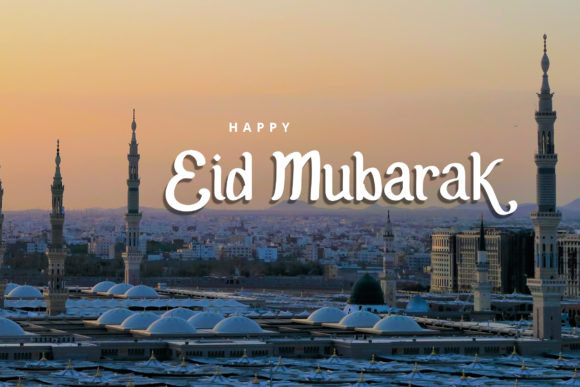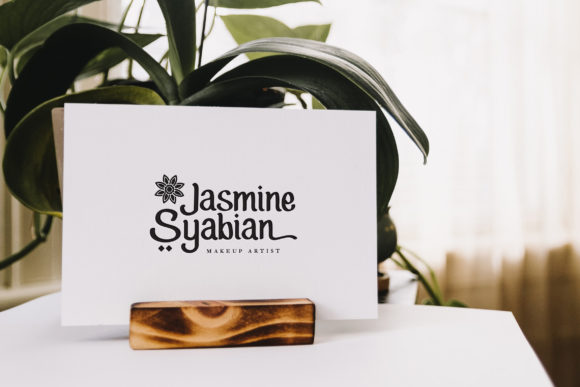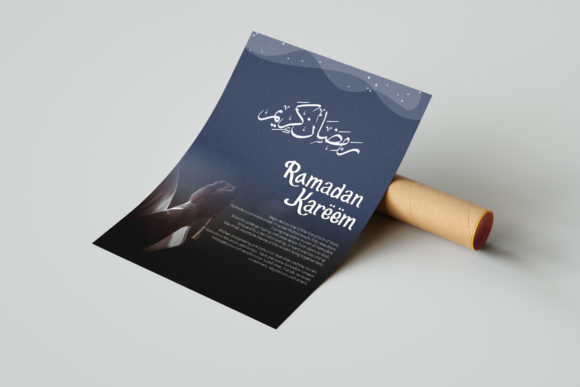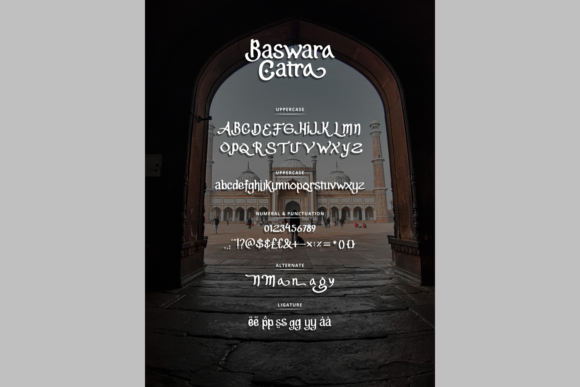
Discover the Elegance of Baswara Catra Font: Elevate Your Designs with a Unique Handwritten Style
In the world of typography, a good font can make all the difference in elevating your designs from ordinary to extraordinary. For designers and crafters looking for a touch of elegance and uniqueness, the Baswara Catra Font is a gem worth exploring. This flowing and unique handwritten font has been capturing hearts with its incredibly versatile style, making it perfect for a wide range of creative projects.
The Charm of Baswara Catra Font
Baswara Catra Font stands out with its beautiful, handcrafted design that exudes a sense of sophistication and charm. Its flowing lines and unique characteristics make it a versatile choice for various design needs. Whether you’re working on wedding invitations, stationery art, social media posts, or any other creative project, Baswara Catra brings a touch of elegance and personalization that sets your work apart.
Perfect for Wedding Invitations and Stationery
Wedding planners and stationery designers, rejoice! Baswara Catra Font is an excellent choice for creating stunning wedding invitations and stationery. Its elegant and flowing script gives your designs a romantic and luxurious feel, making it perfect for save-the-date cards, wedding programs, and thank-you notes. The font’s unique style ensures that your wedding stationery will be memorable and truly reflective of the couple’s special day.
Eye-Catching Social Media Posts
In the digital age, social media presence is crucial for businesses, influencers, and creatives alike. With Baswara Catra Font, you can create eye-catching social media posts that stand out in crowded feeds. Its unique and flowing style makes your content more engaging and visually appealing, helping you to attract more attention and connect with your audience on a deeper level.
Beyond Stationery: Exploring More Uses for Baswara Catra
The versatility of Baswara Catra Font extends far beyond wedding invitations and social media posts. Here are a few more ideas to get you started:
- Branding and Packaging: Use Baswara Catra to add a personal touch to your brand’s packaging, labels, and marketing materials.
- Art and Illustration: Combine Baswara Catra with your illustrations or watercolor designs to create stunning art pieces.
- Quotes and Typography Art: Create inspiring typography art with Baswara Catra, perfect for sharing on social media or displaying in your workspace.
- Event and Party Decor: Design beautiful event banners, party invitations, and decor with Baswara Catra to add a touch of elegance to any celebration.
Why Choose Baswara Catra Font?
So, what makes Baswara Catra Font a must-have for designers and crafters? Here are a few reasons:
- Unique and Versatile: Its flowing and unique style makes it suitable for a wide range of projects.
- Elegant and Sophisticated: Adds a touch of elegance and sophistication to your designs.
- Easy to Read: Despite its unique style, Baswara Catra remains easy to read, making it perfect for both headings and body text.
- Highly Customizable: Experiment with different colors, sizes, and styles to make Baswara Catra your own.
In conclusion, Baswara Catra Font is a beautiful and versatile handwritten font that can elevate your designs to new heights. Its unique and flowing style makes it perfect for a variety of creative projects, from wedding invitations and stationery to social media posts and branding materials. With its elegance, sophistication, and ease of use, Baswara Catra is sure to become a favorite in your font collection.